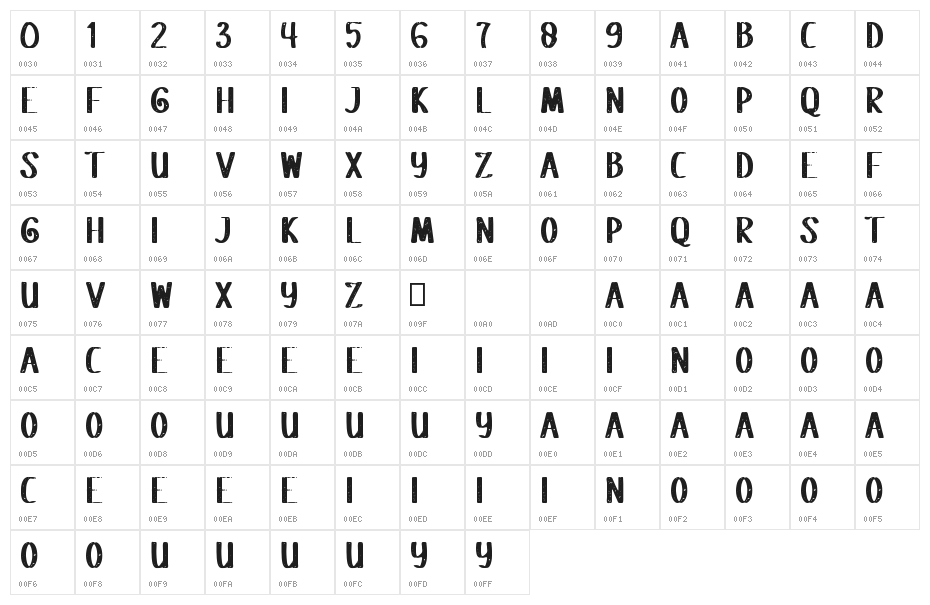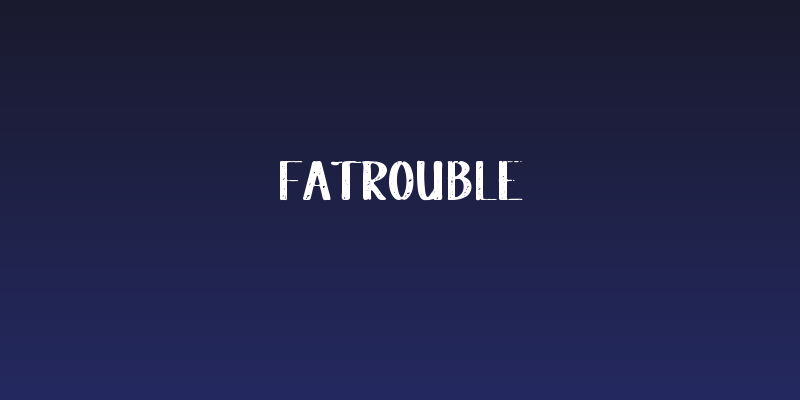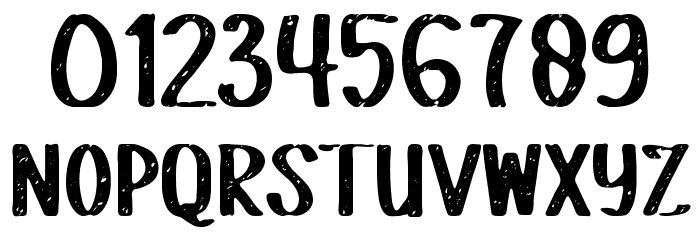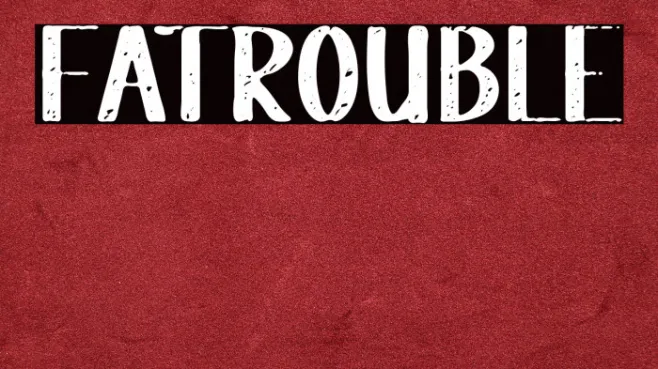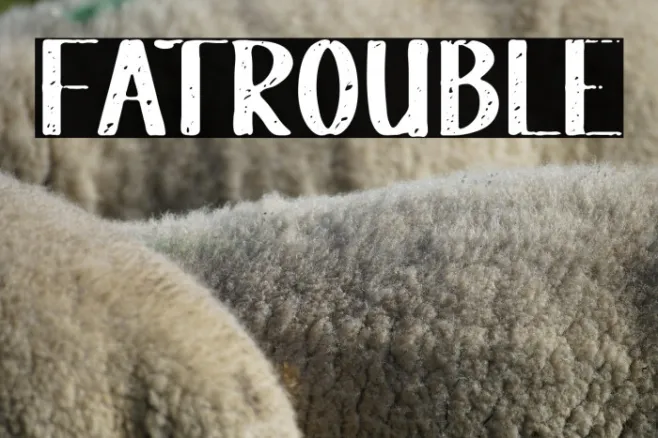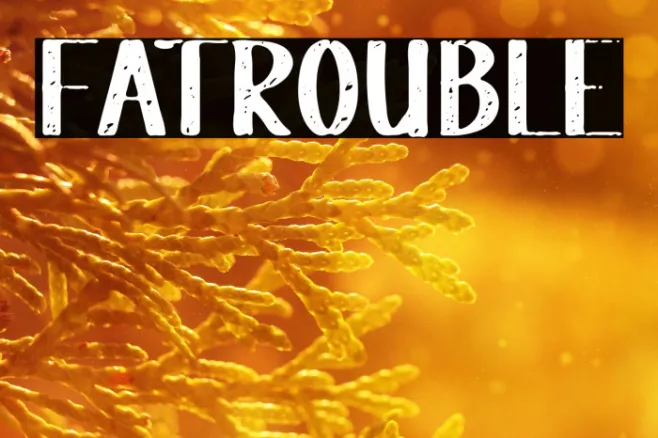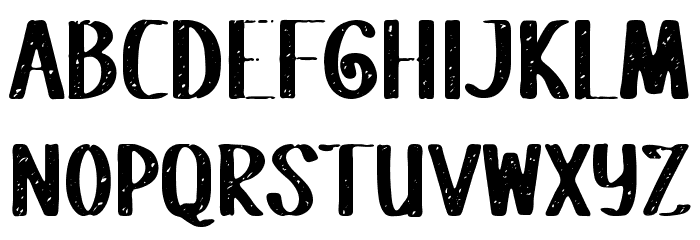
Fatrouble Font
Fatrouble Description
This font features a bold and playful style with a hand-drawn appearance. The characters are thick and rounded, with a slightly distressed texture that adds a vintage feel. The uppercase and lowercase letters maintain a consistent weight, giving the font a cohesive look. The numbers and special characters follow the same design principles, ensuring uniformity across all glyphs. This font's unique style makes it stand out, making it suitable for projects that require a fun and engaging aesthetic.